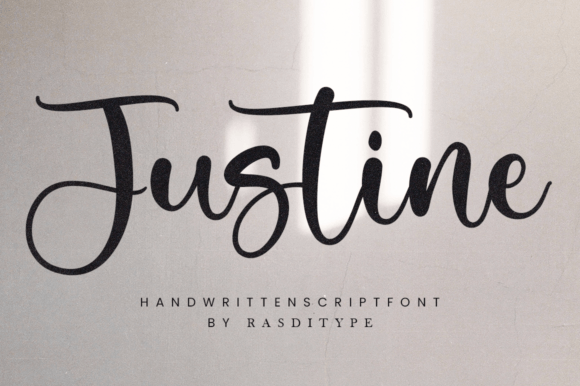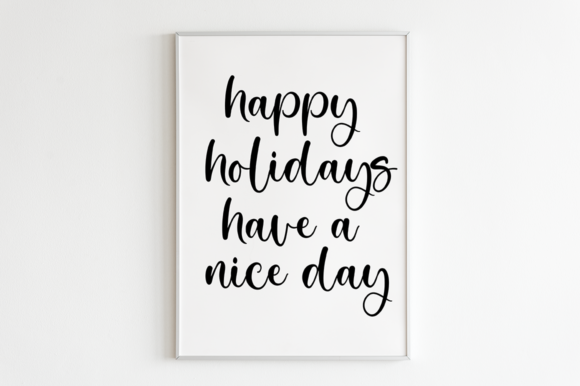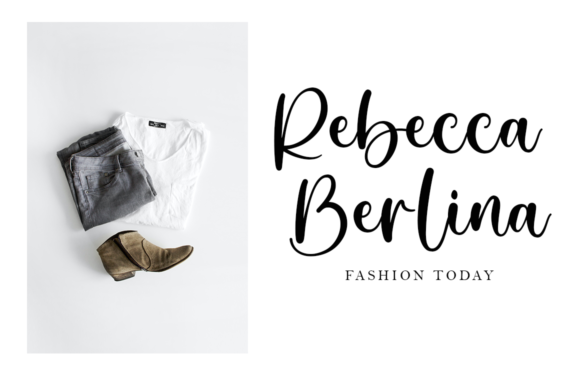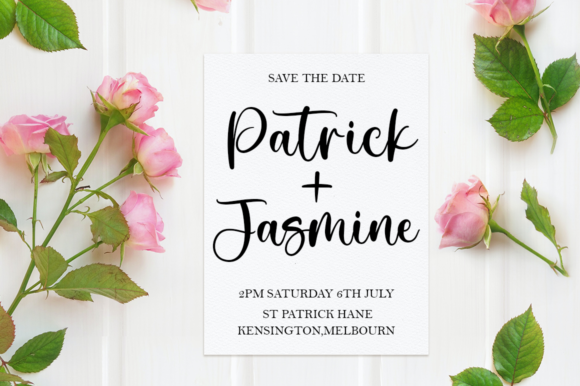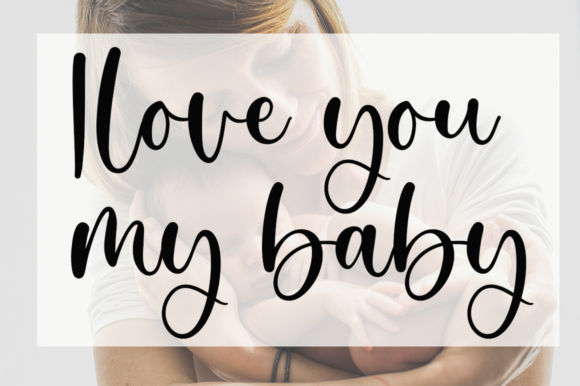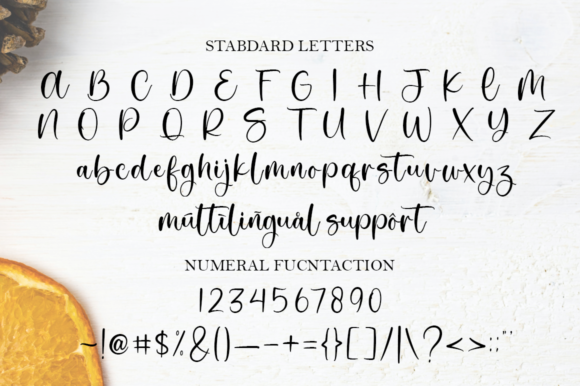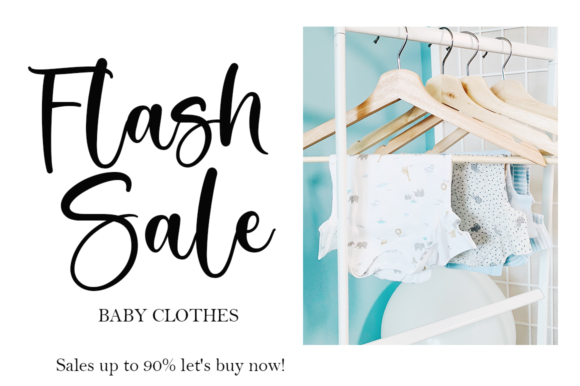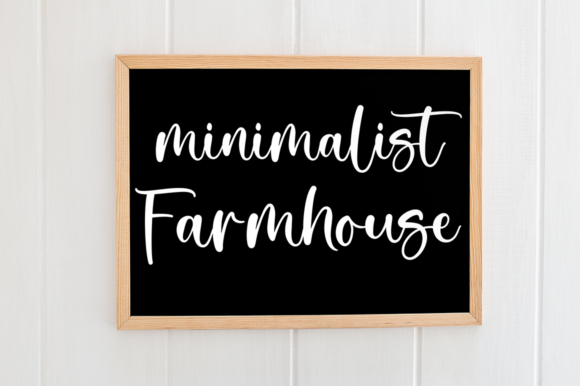
Justine Font
Introducing “Justine,” a lovely and delicate script font that radiates elegance and class. Meticulously crafted for those seeking a beautiful and refreshing look for their designs, “Justine” is designed to add a touch of sophistication to a variety of creative projects.
The font’s delicate script style exudes a timeless elegance, making it a perfect choice for applications that demand a refined and graceful aesthetic. Whether you’re working on invitations, branding, or any design where beauty is a priority, “Justine” is tailored to elevate your creations.
“Justine” goes beyond being just a font—it’s a carefully crafted tool to bring a sense of beauty and sophistication to your projects. The PUA encoding ensures easy access to all the amazing glyphs and ligatures, providing you with the flexibility to explore and utilize its full range of design possibilities.
Imagine “Justine” as the ideal choice for infusing your designs with an elegant and refreshing vibe. Whether you’re creating stunning invitations or adding a touch of class to your branding, let this font be the key element that transforms your projects into visual masterpieces.
In summary, “Justine” is a lovely and delicate script font designed for those who appreciate elegance and class. Embrace its beauty, access the amazing glyphs and ligatures with ease, and let it be the font that adds a touch of sophistication to your designs, leaving a lasting impression on your audience.